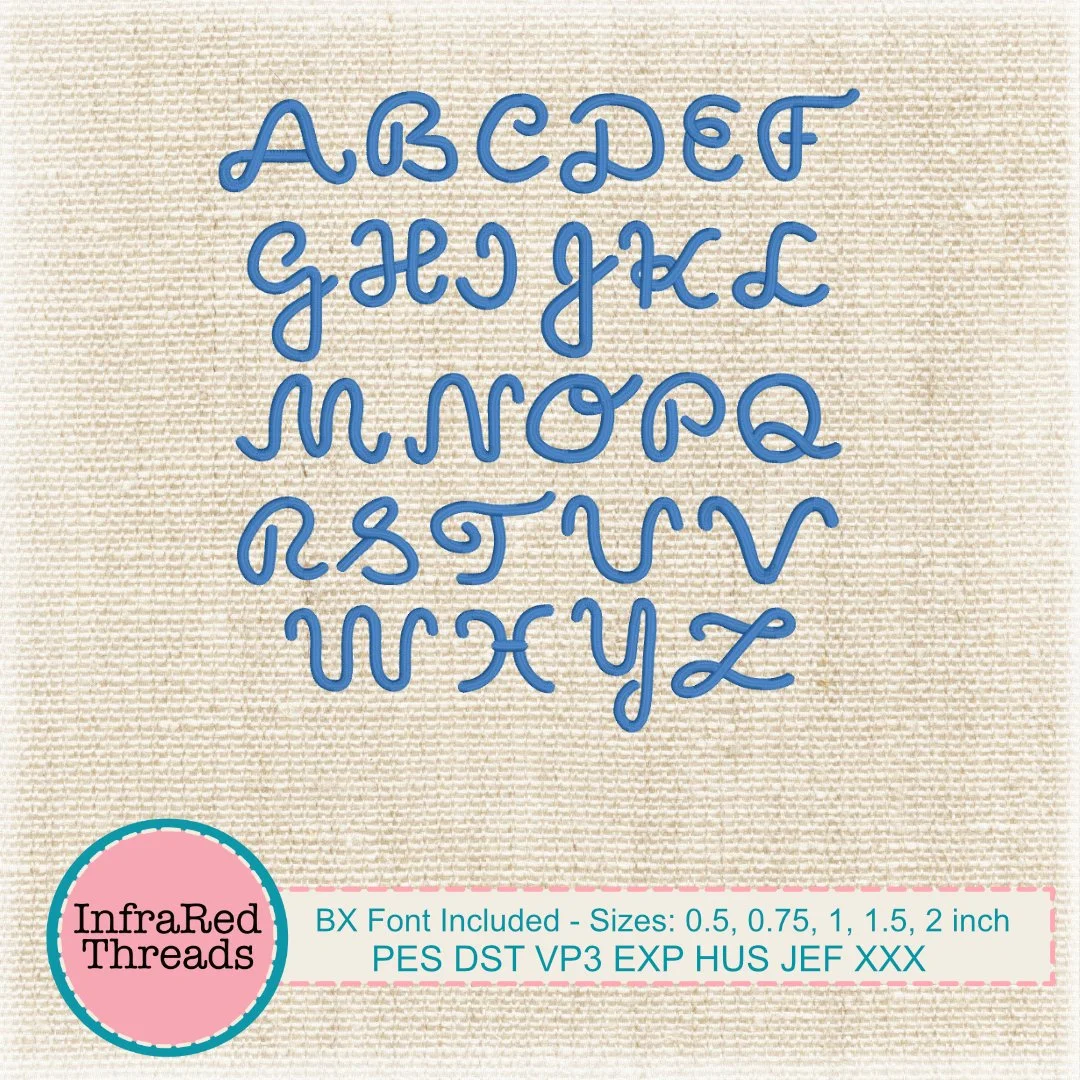
Wrangler Embroidery Font – Western-Inspired Lettering - BX Included
The Wrangler Font features a western-style embroidery alphabet with playful curves and a rope-like flair, evoking cowboy aesthetics and rustic charm. It’s a great choice for rodeo-themed projects, kids’ clothing, farm signs, and custom gifts. Designed with satin stitch for a clean, bold finish that stands out on any fabric. This font is perfect for crafters, small businesses, and anyone who loves country-inspired embroidery work.